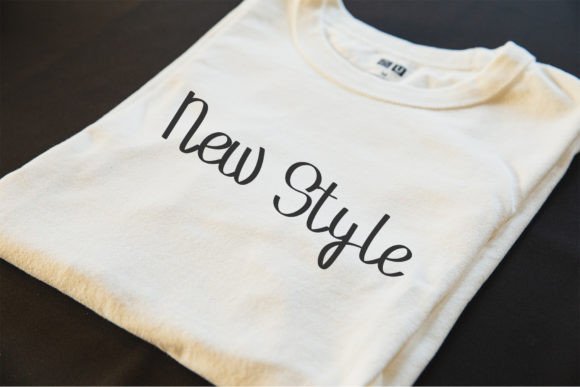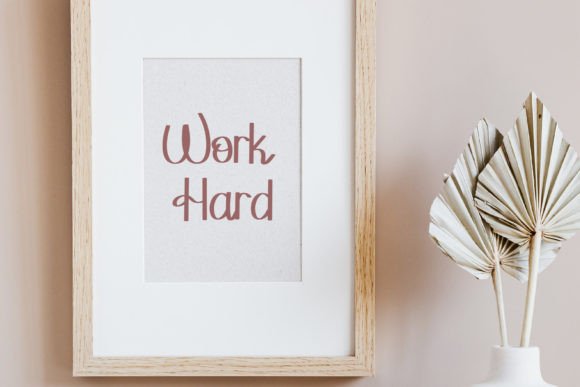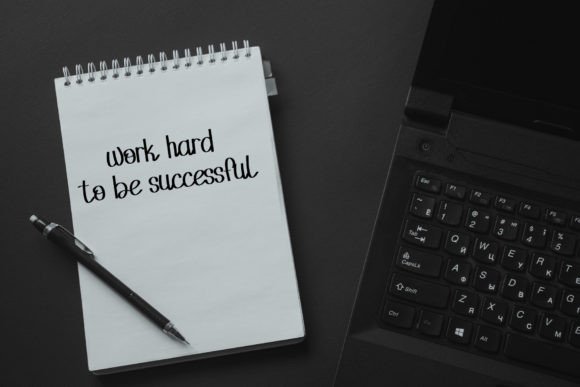
“Handmade” is a delightful and whimsical script font designed to infuse a touch of luxury into your creative projects. With characters that gracefully dance along the baseline, this thin script font brings an elegant spark to various design endeavors.
The sweet and flowing nature of “Handmade” makes it a versatile choice for a variety of design applications. Imagine the impact it can have on wedding invitations, where it transforms the text into a beautifully flowing expression of sophistication. The whimsical design and delicate strokes make it ideal for thank-you cards, quotes, and greeting cards, imparting a sense of charm and refinement.
In branding and business cards, “Handmade” serves as a distinctive element, introducing a luxurious and memorable visual identity. The thin script with its playful yet elegant characteristics contributes to creating a unique brand presence. It shines in logo designs, business cards, and any application that demands a handwritten touch.
For digital platforms, “Handmade” is well-suited for social media graphics, banners, or any project requiring a unique and expressive script font. Its dynamic and graceful appearance catches the eye, making it suitable for a range of applications, from digital artwork to promotional materials.
When applied to print materials such as posters or packaging, “Handmade” becomes a defining feature, adding a luxury spark to the overall aesthetic. The whimsical script creates a visual delight, enhancing the engagement and memorability of the design.
With its thin and flowing script, “Handmade” offers a fresh and contemporary look while maintaining a timeless appeal. This font is more than just a typeface; it’s a design tool that elevates your creative projects, making them stand out with a touch of sophistication and luxury. Whether you’re crafting for digital or print platforms, “Handmade” invites you to infuse your designs with a sense of charm and refinement.